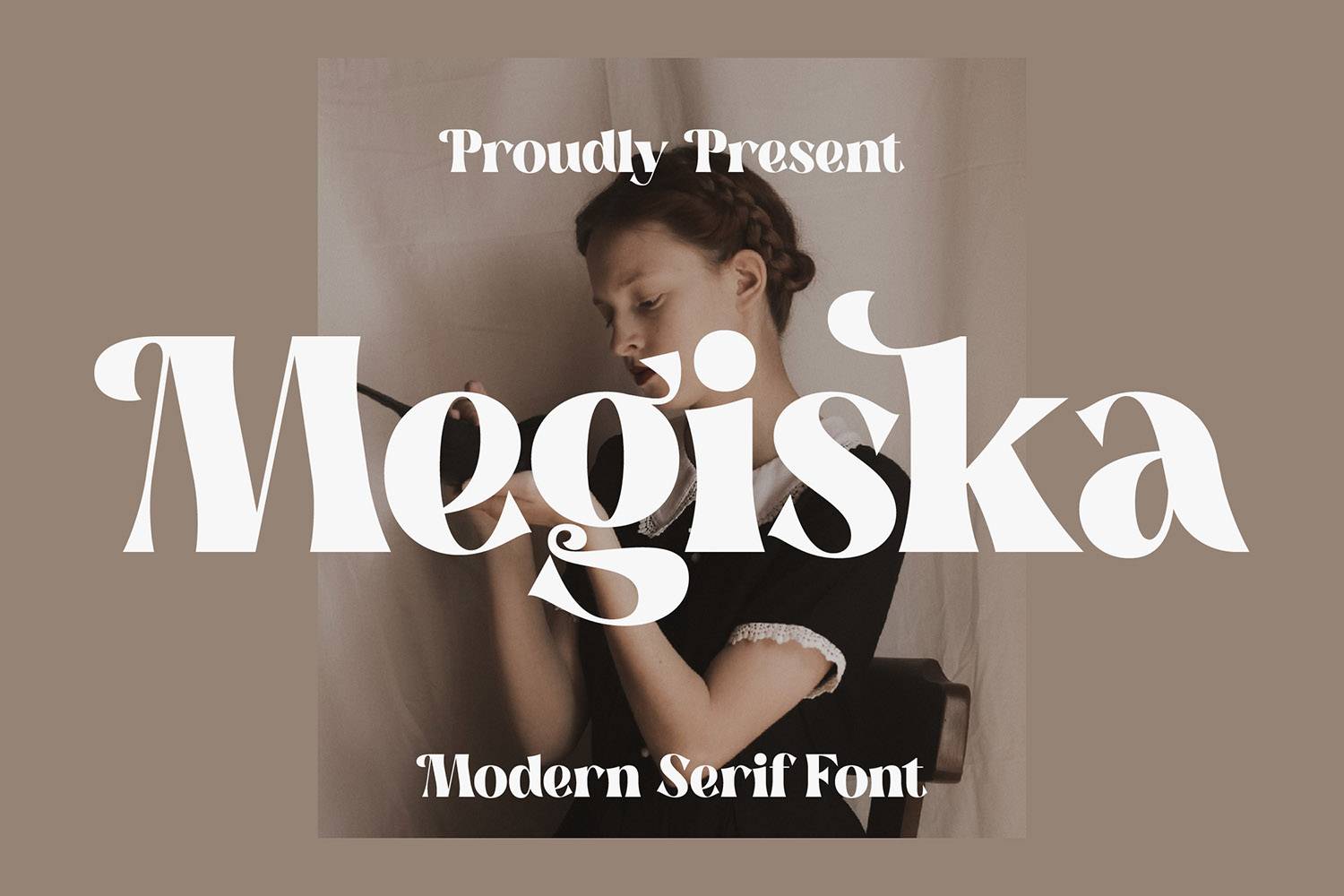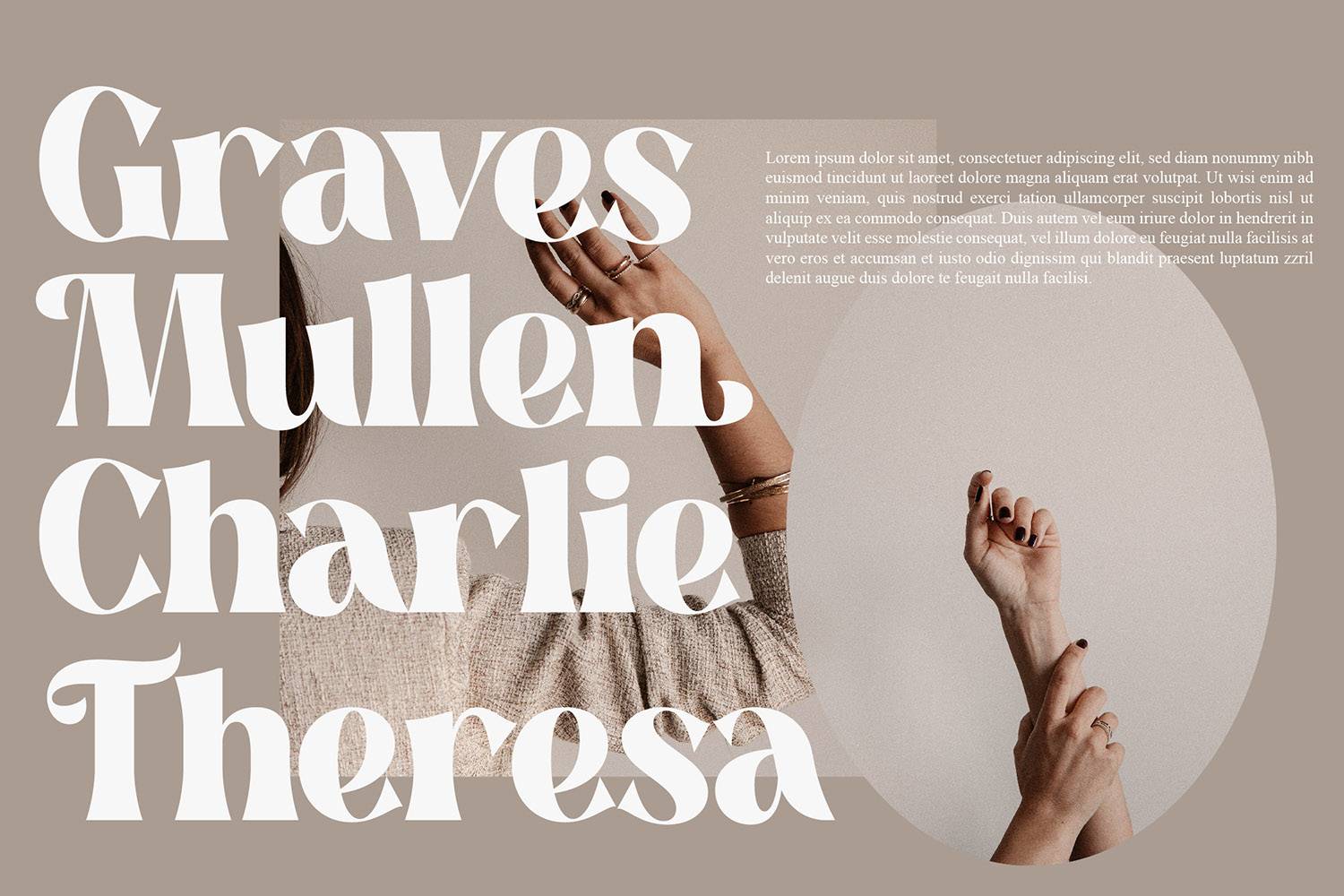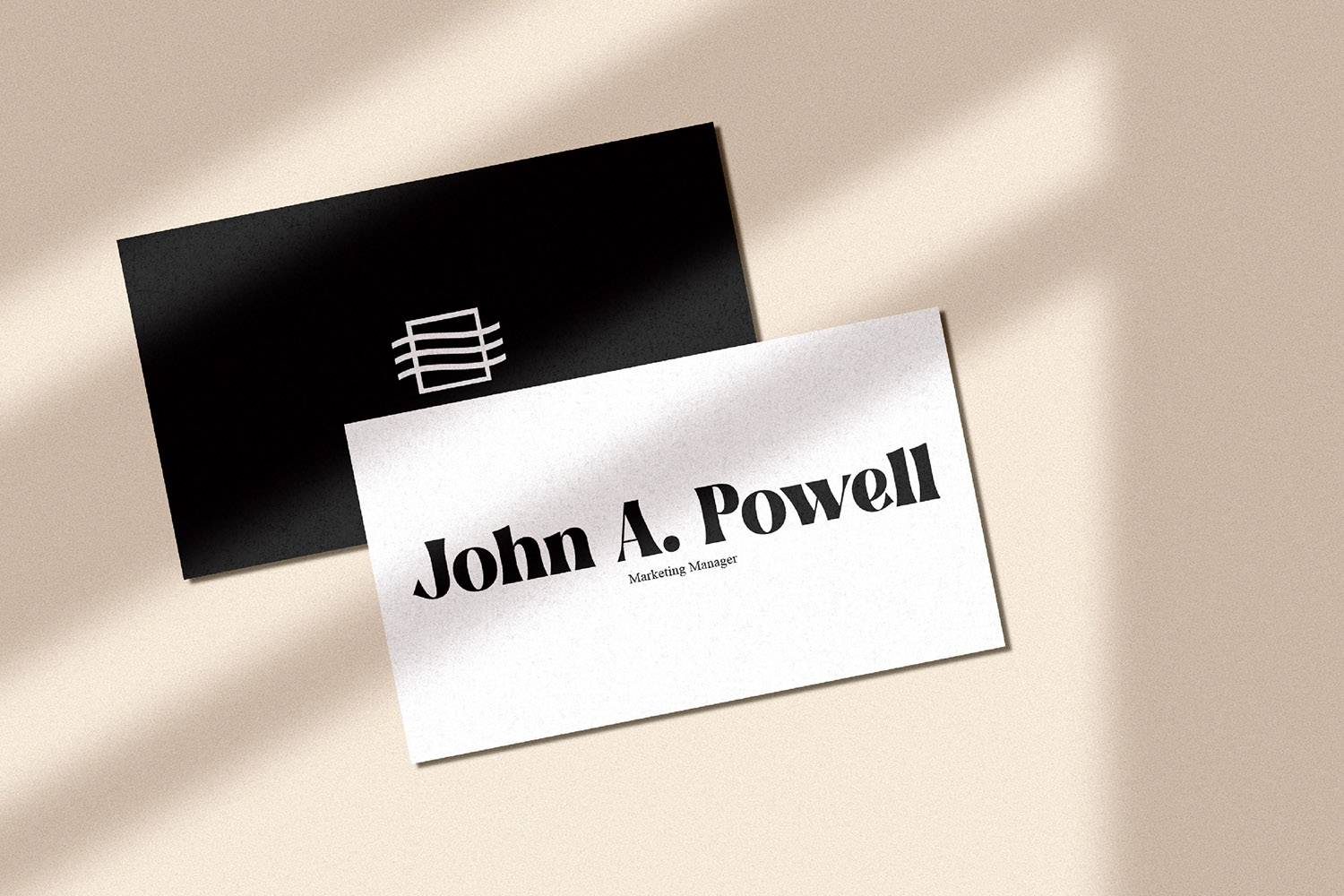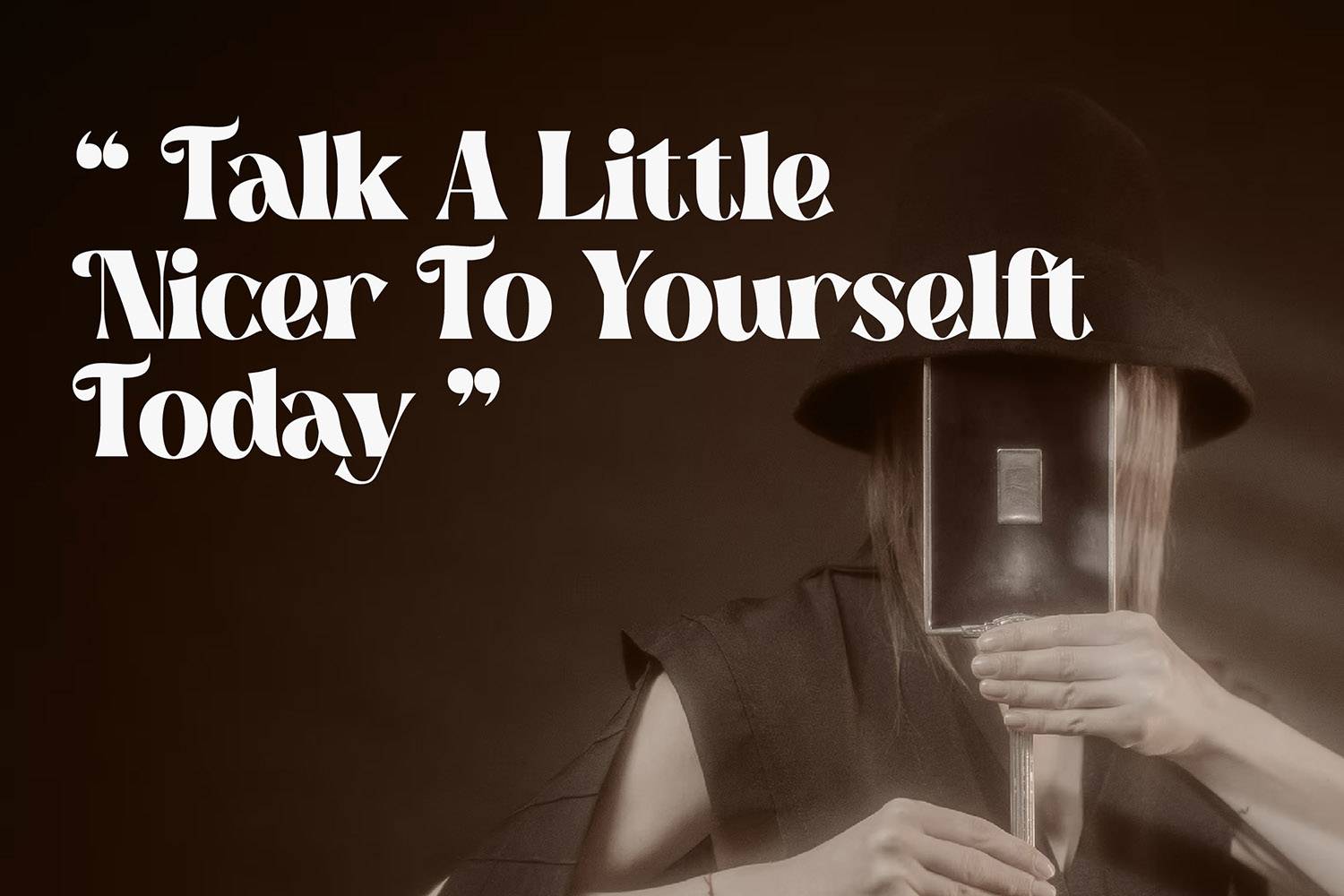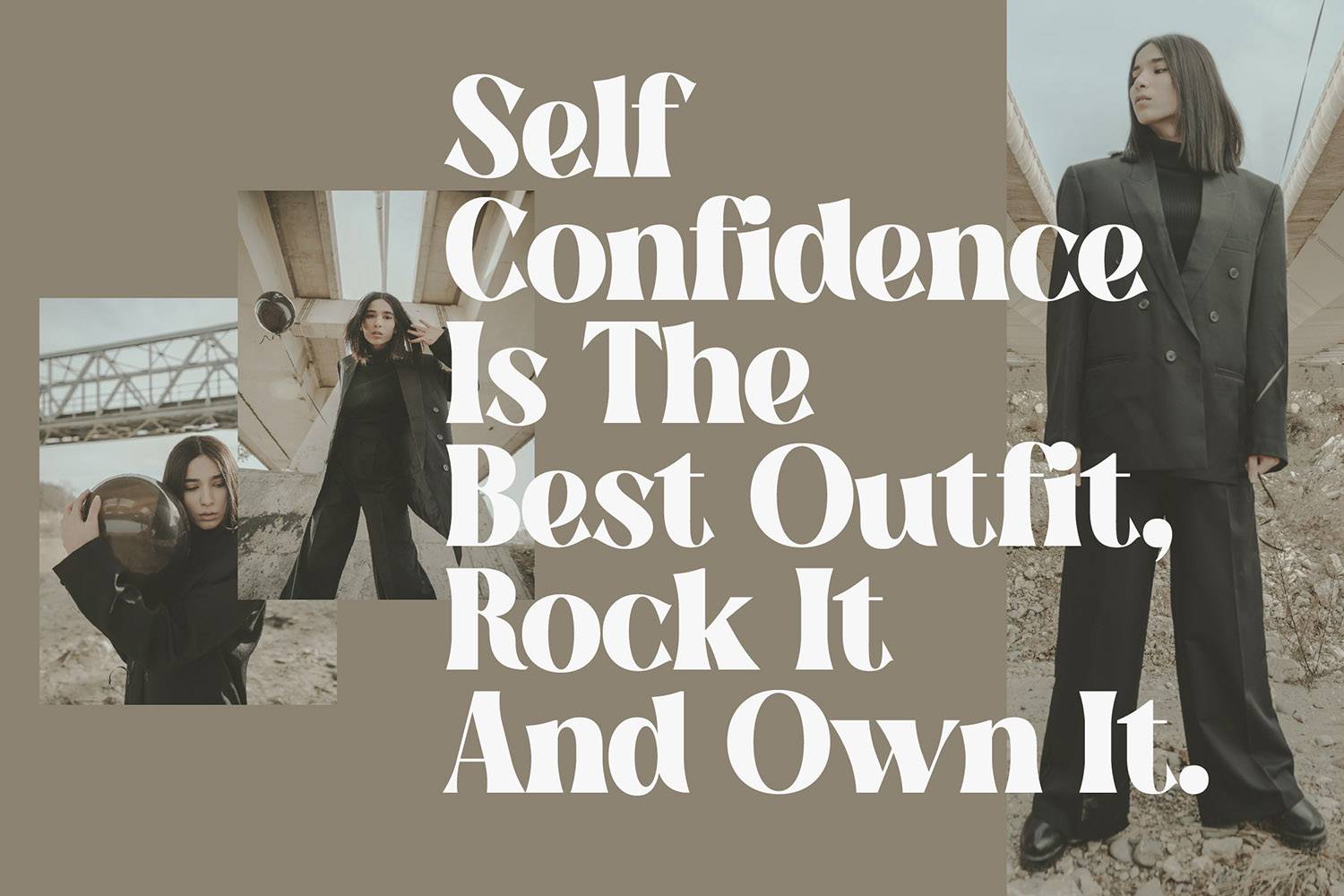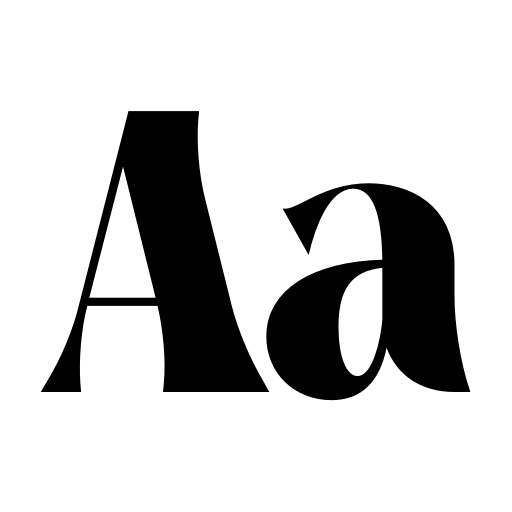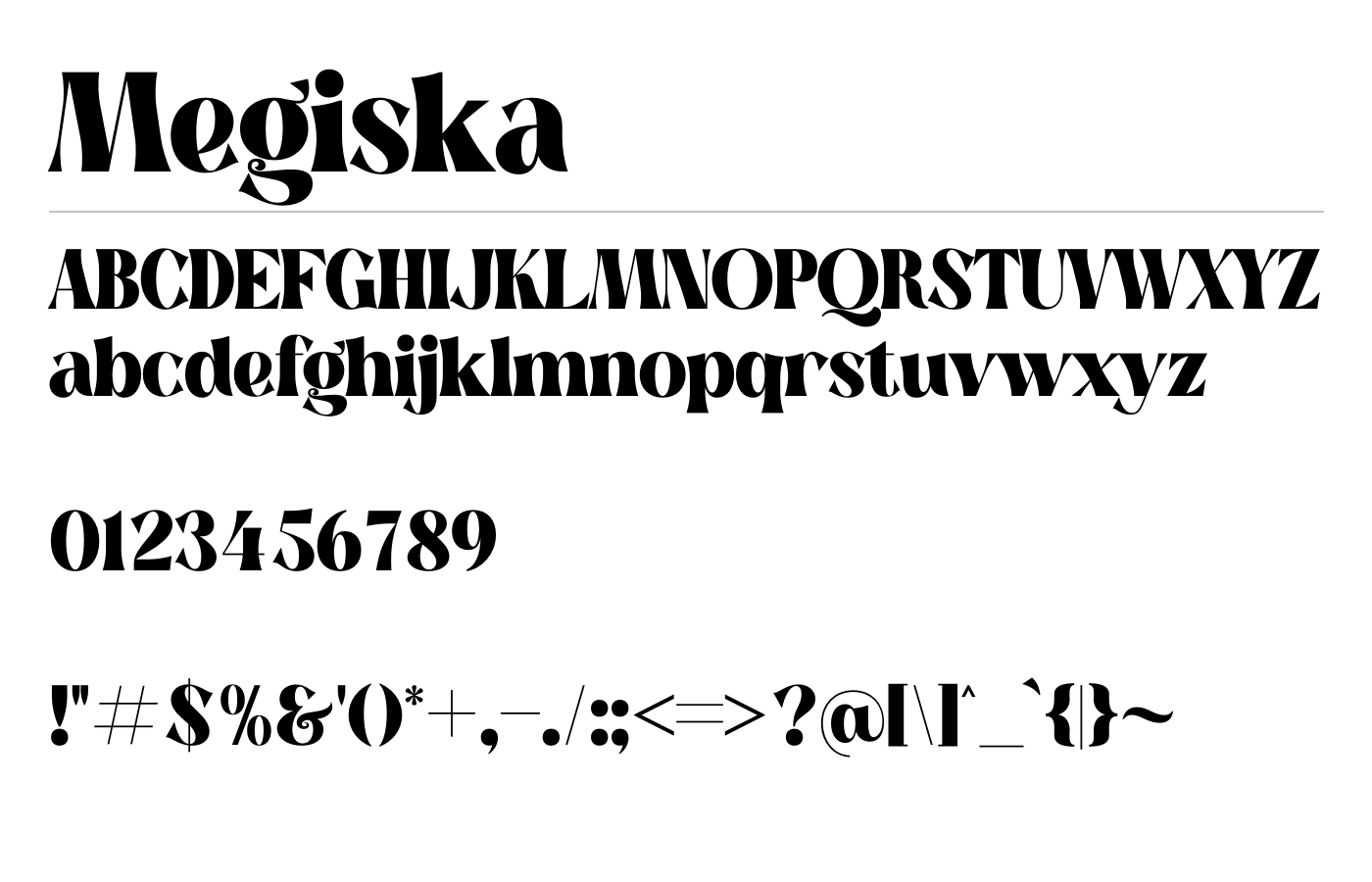
Megiska is a bold serif font with a strong contrast between thick and thin strokes, featuring distinctive sharp, bracketed serifs and elegant curves that give it a dramatic, sophisticated flair. Its unique letterforms, such as the curled tail on the lowercase "g" and the stylized ampersand, make it perfect for luxury branding, editorial headlines, and stylish packaging where a blend of modern elegance and vintage charm is desired.
Megiska Font
About Megiska Font